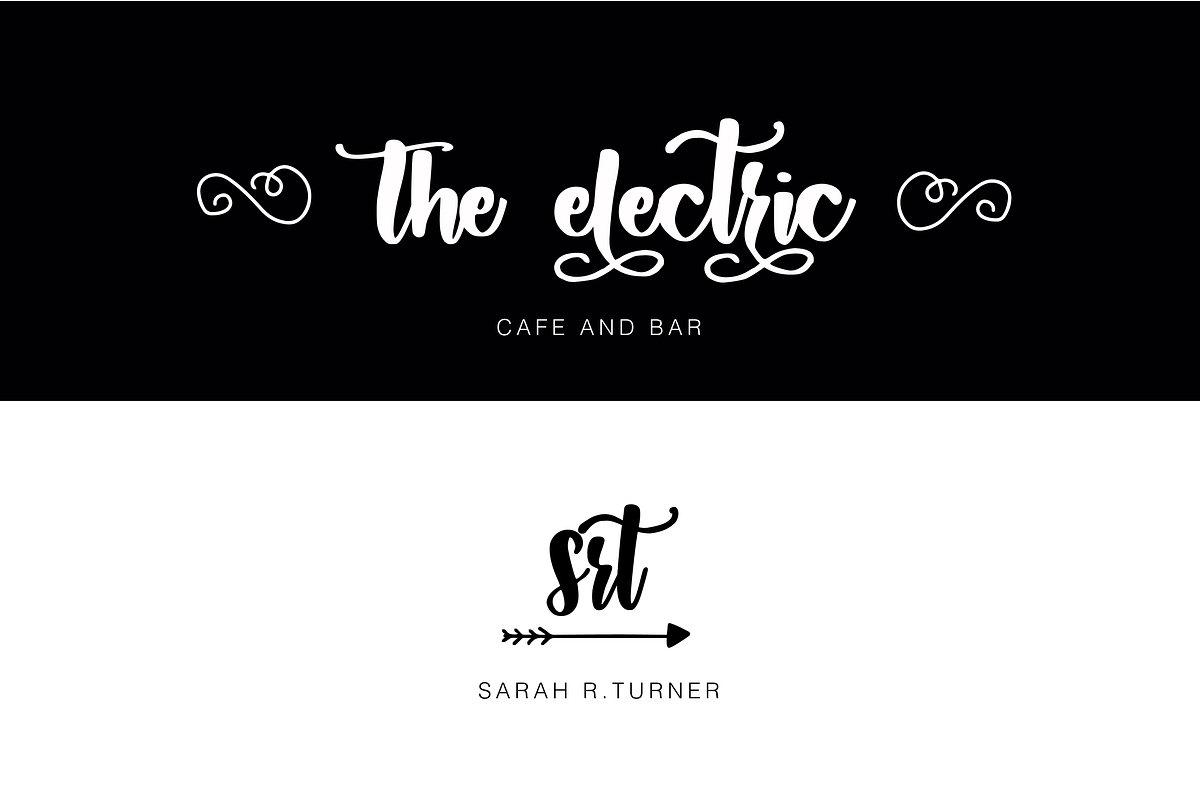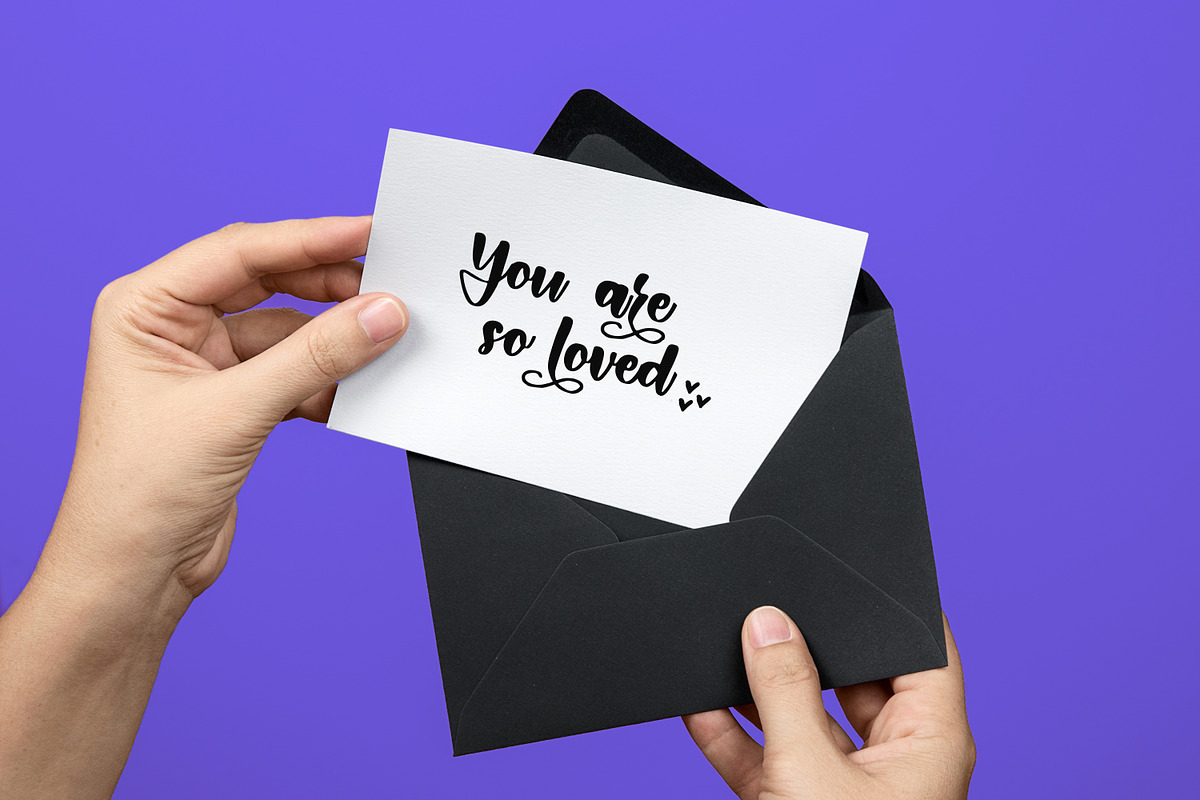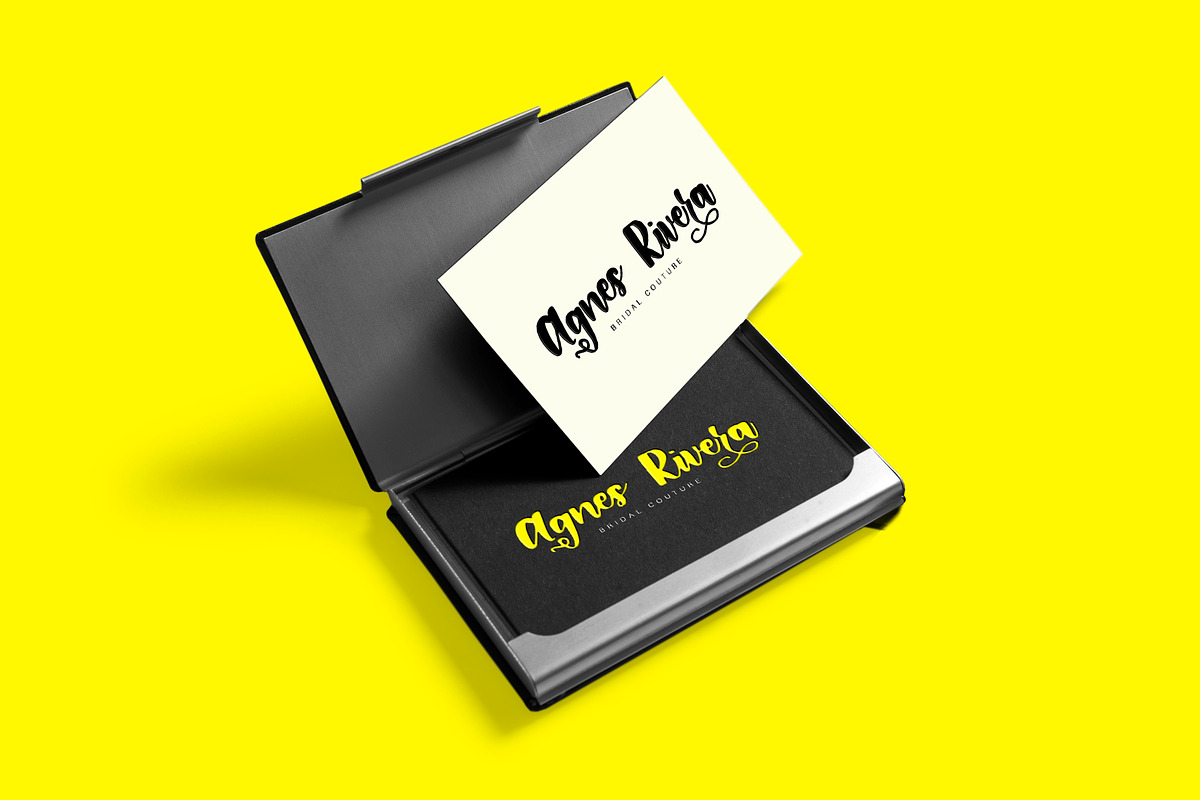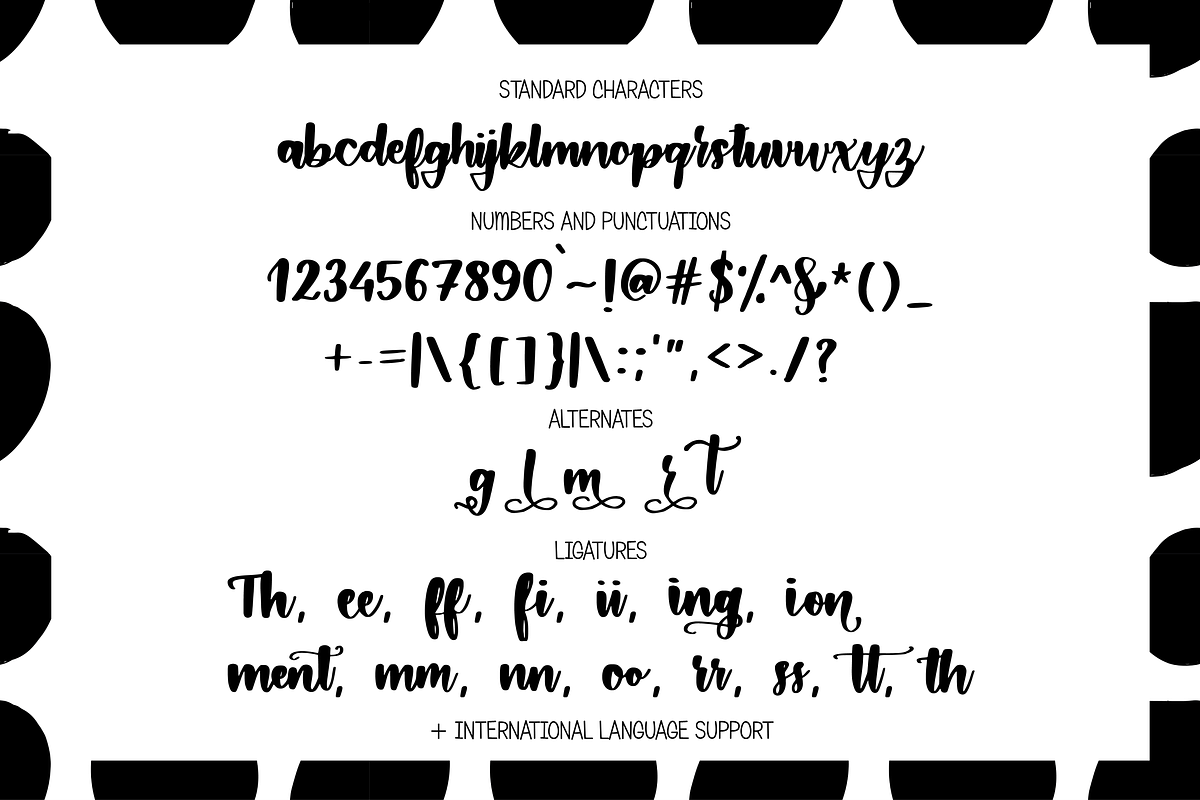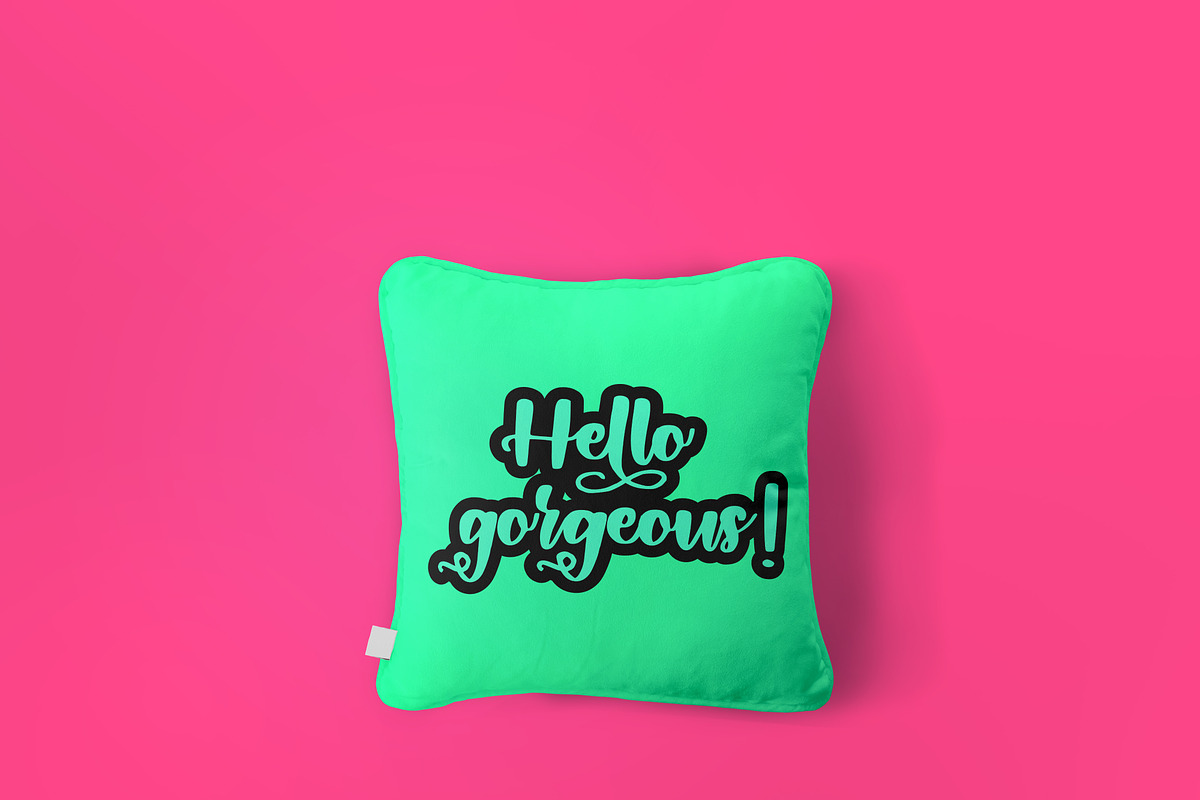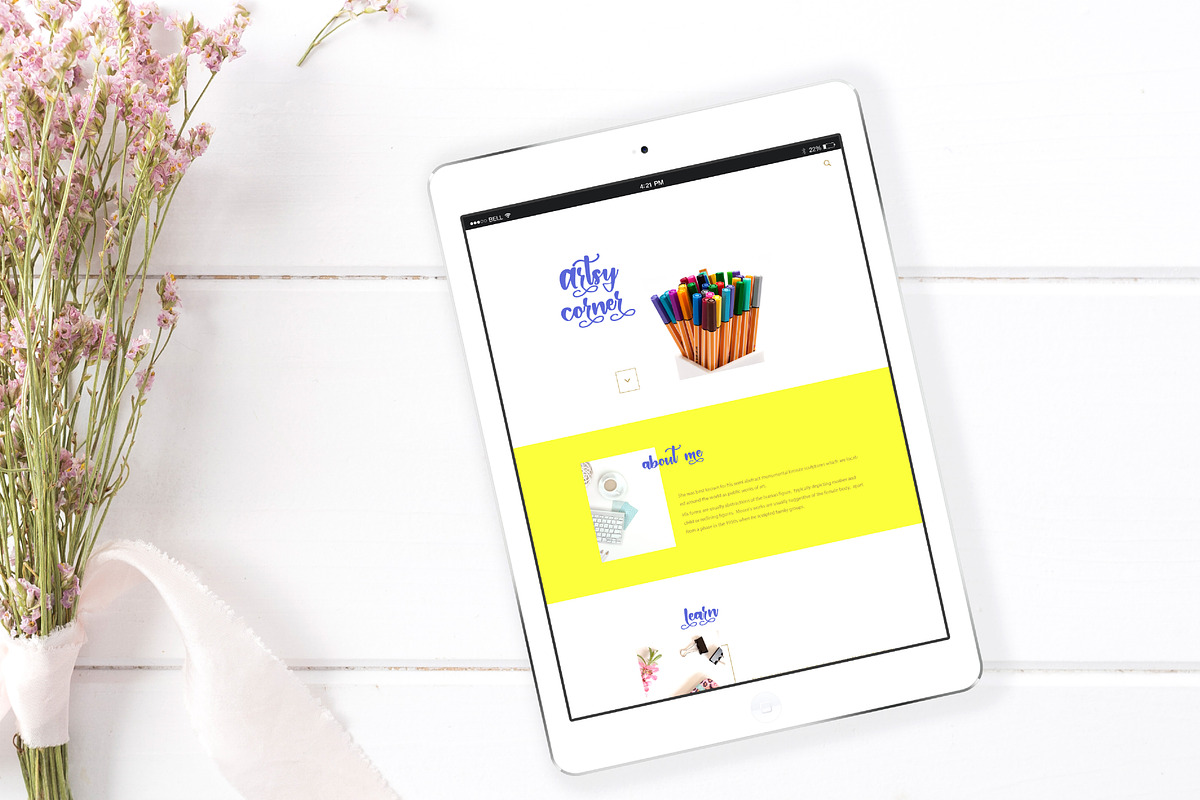
Hey Prettiness! Font + Bonus Vectors
Meet Hey Prettiness!, a pretty little flirtatious script font, perfect for personal branding projects, handwritten quotes, apparel and homeware designs, product packaging, greeting cards or simply as a modern & stylish text overlay to any background image.
Uppercase and Lowercase Letters
Numbers and Punctuations
Alternates of g, l, m, etc to add that extra oomph! ( Turn on Stylistic Alternates, an OpenType feature to easily use the alternate lowercase in the font. )
Multilingual support provided.